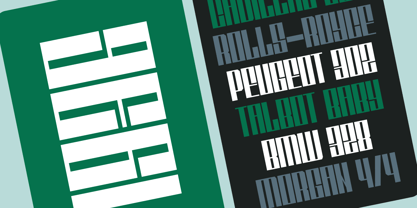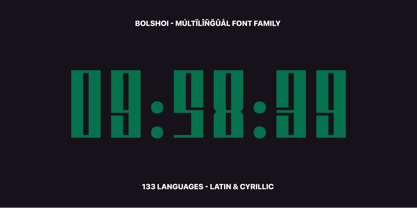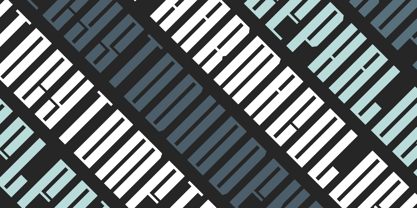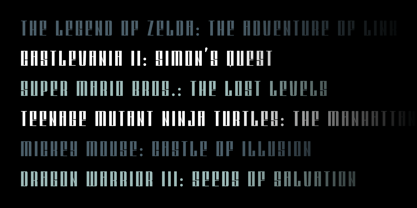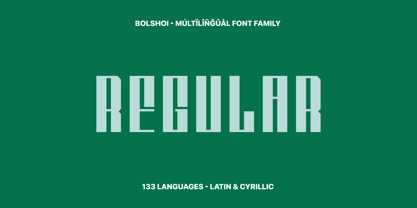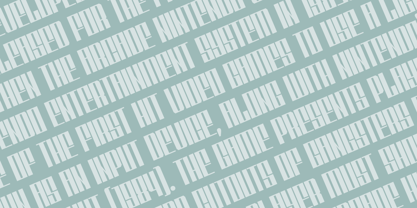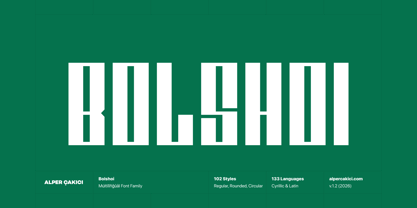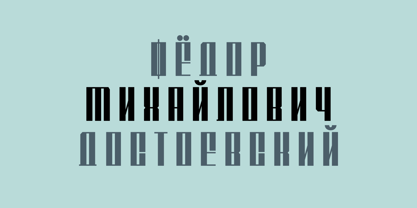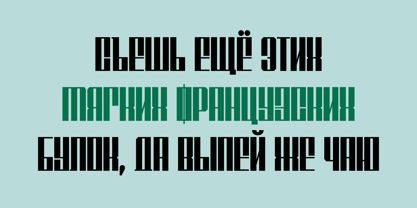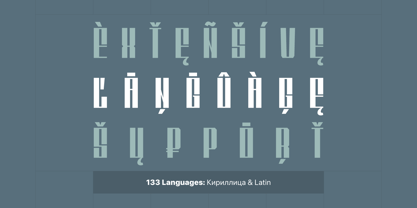
Bolshoi
The Bolshoi Font Family was designed by Alper Çakıcı and published by AlperCakici. Bolshoi contains 102 styles and family package options. More about this family
Bolshoi is a bold blackletter-inspired display typeface family that combines sharp calligraphic cut-edge forms with geometric rectangular construction. Designed by Alper ÇAKICI, Bolshoi delivers a strong medieval and gothic atmosphere while maintaining a modern structured appearance.
The family includes an extensive collection of 102 styles featuring Regular, Rounded, and Circular constructions alongside richly textured variations such as Aged, Brush, Chalk, Dry, Grainy, Gritty, Hazy, Pencil, Rough, Rusty, Sketchy, Worn, Outline, Shadow, and more. Matching italic versions provide additional expressive flexibility for branding, posters, album covers, packaging, apparel, gaming, fantasy themes, editorial titles, and cinematic typography.
With support for both Latin and Cyrillic scripts and a glyph set of 499 characters, Bolshoi is suitable for multilingual projects requiring dramatic visual impact. Its blend of gothic inspiration, geometric precision, and distressed handcrafted textures makes it ideal for projects that demand bold personality and distinctive style.